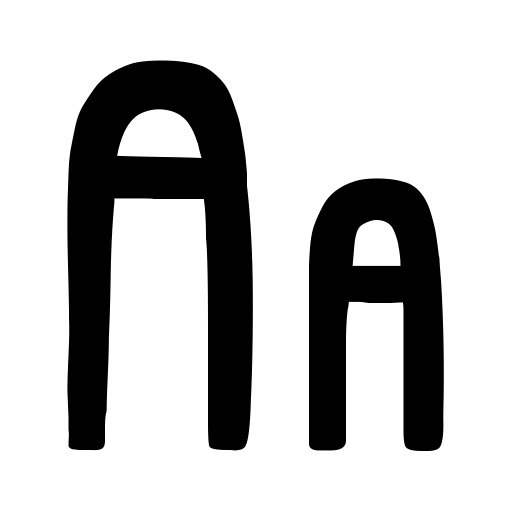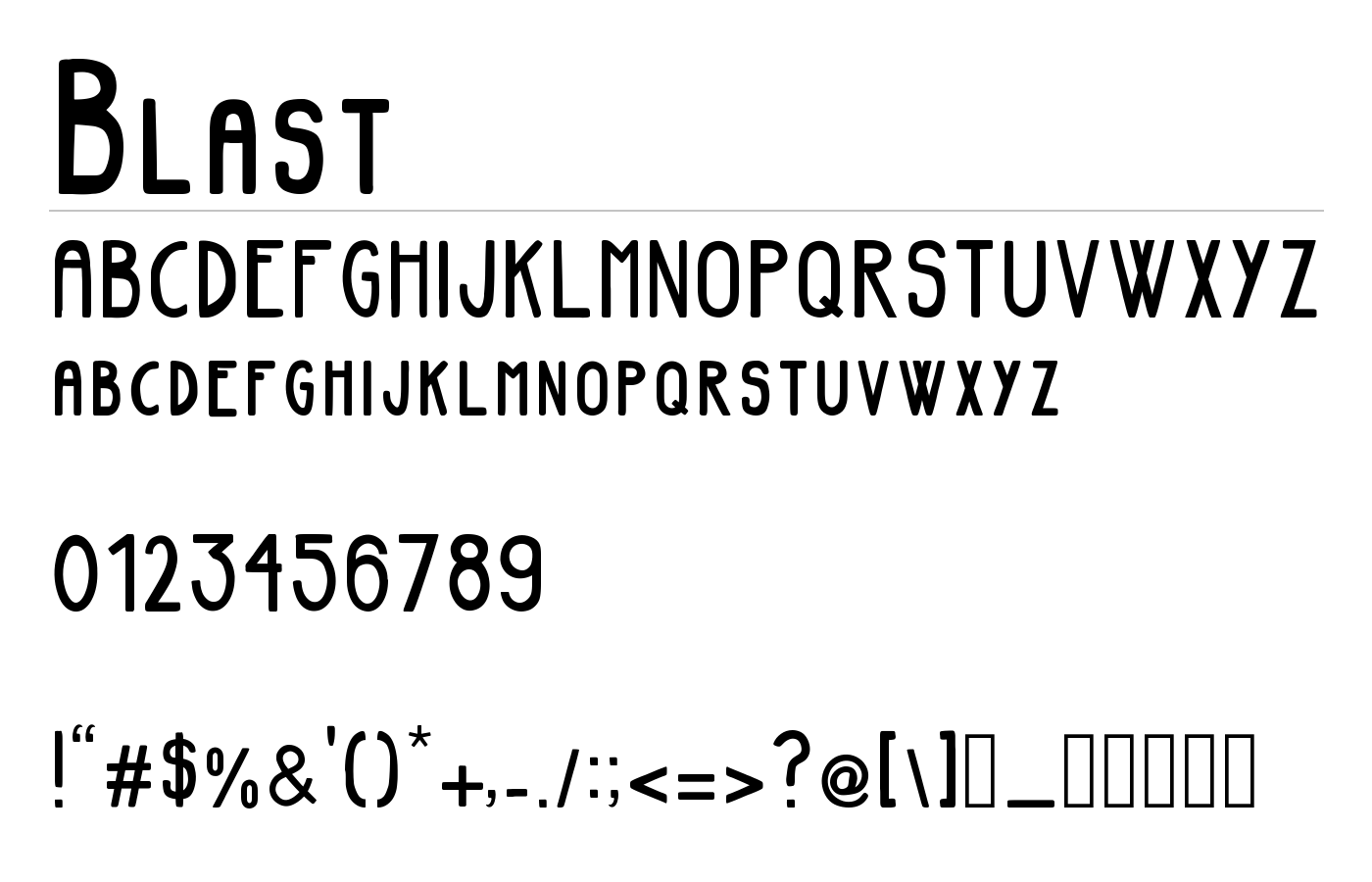
Blast Font is a condensed sans serif typeface with a playful, slightly quirky character. Its tall, narrow letterforms feature smooth, rounded edges and a consistent low contrast stroke, giving it a modern yet friendly feel that works well for headlines, posters, and branding that seeks an approachable but distinctive look. This font's unique style is ideal for creative projects that want to stand out with personality while remaining clean and easy to read.
Blast Font
About Blast Font